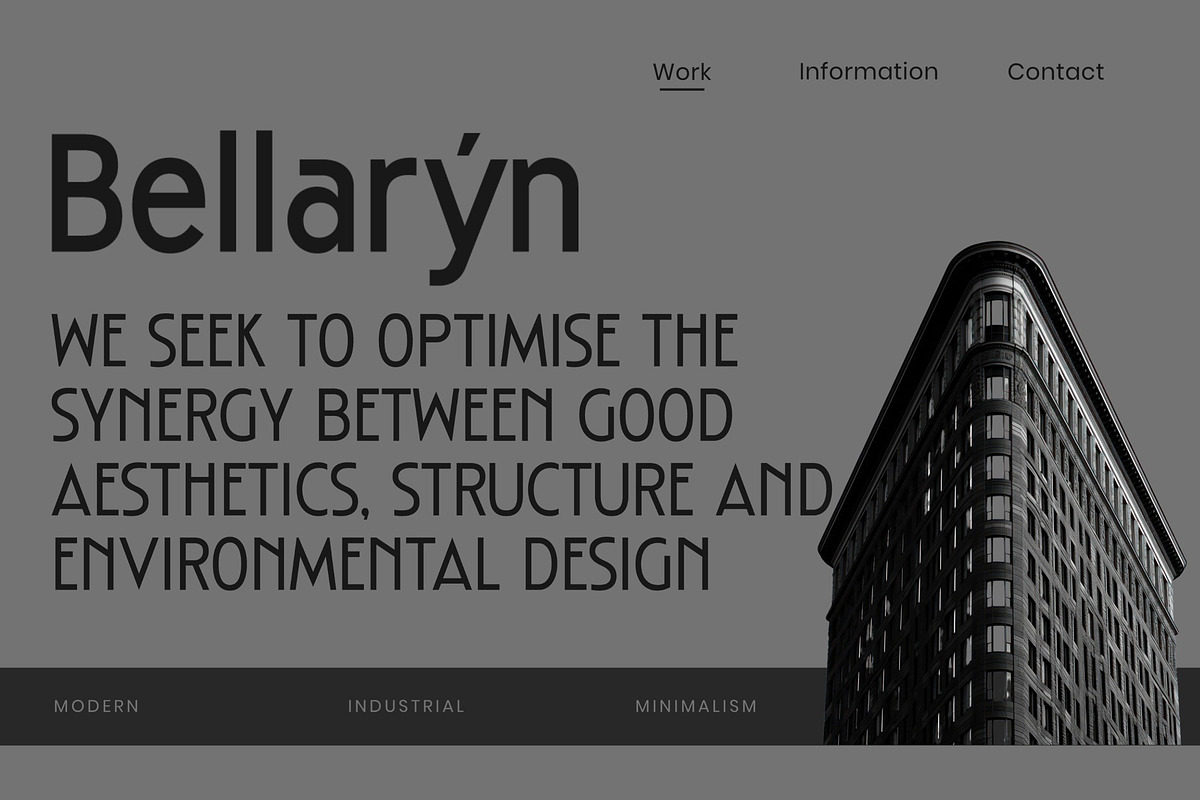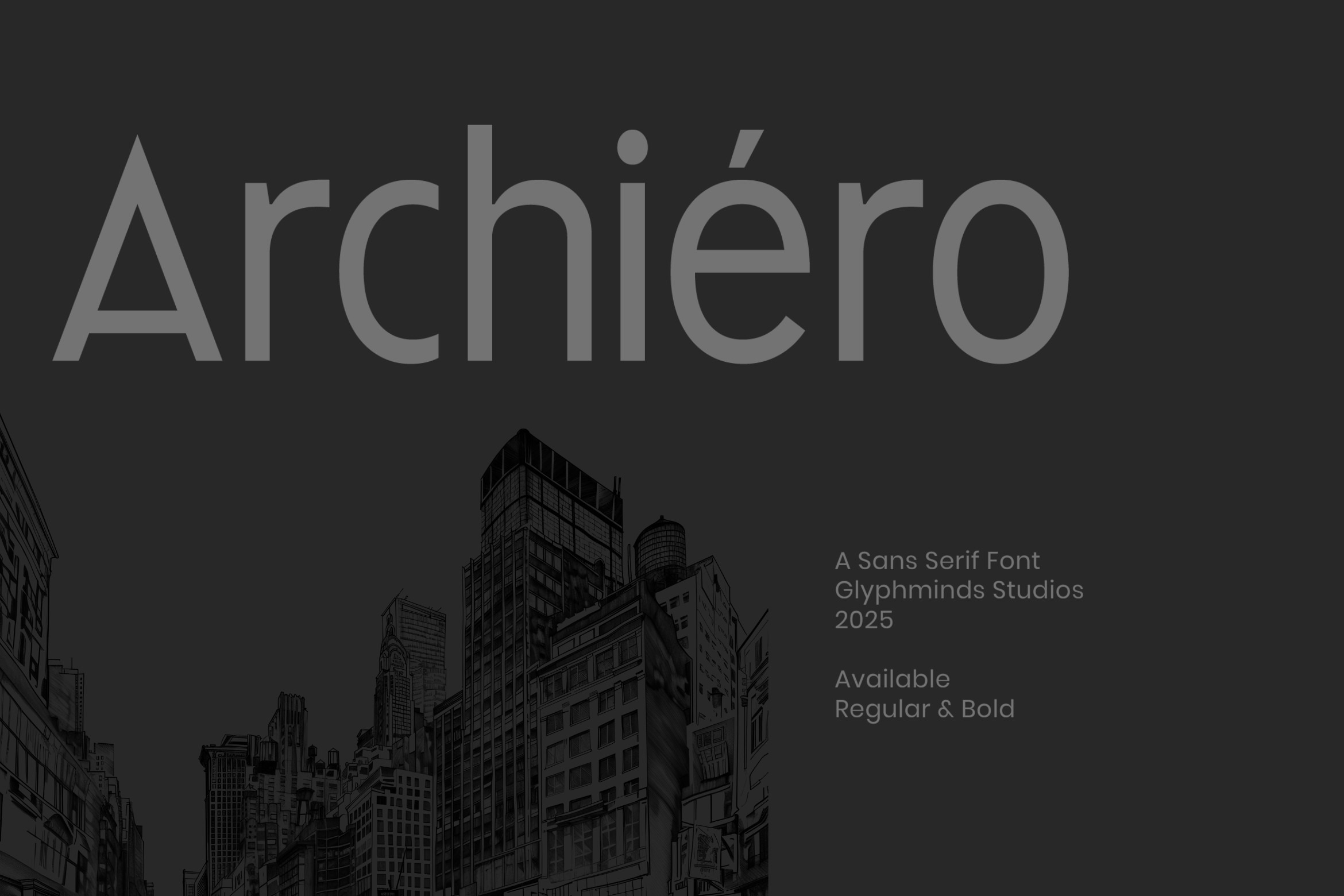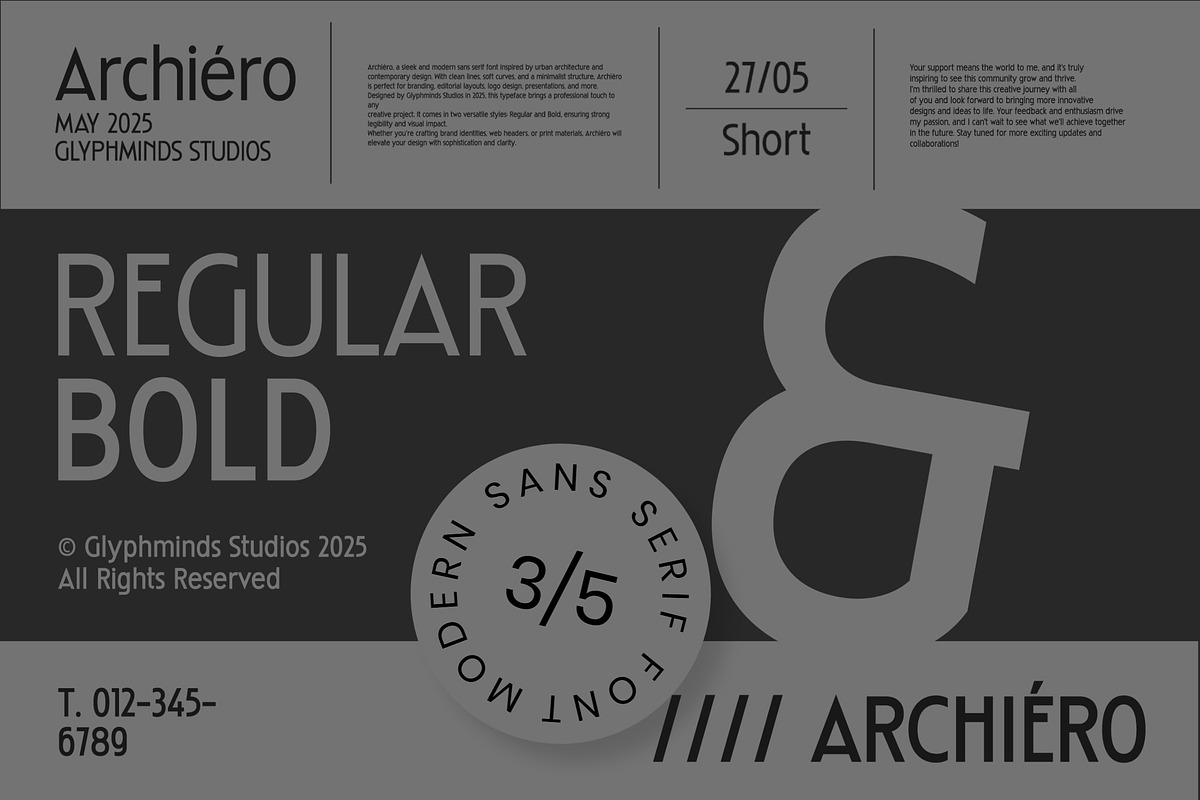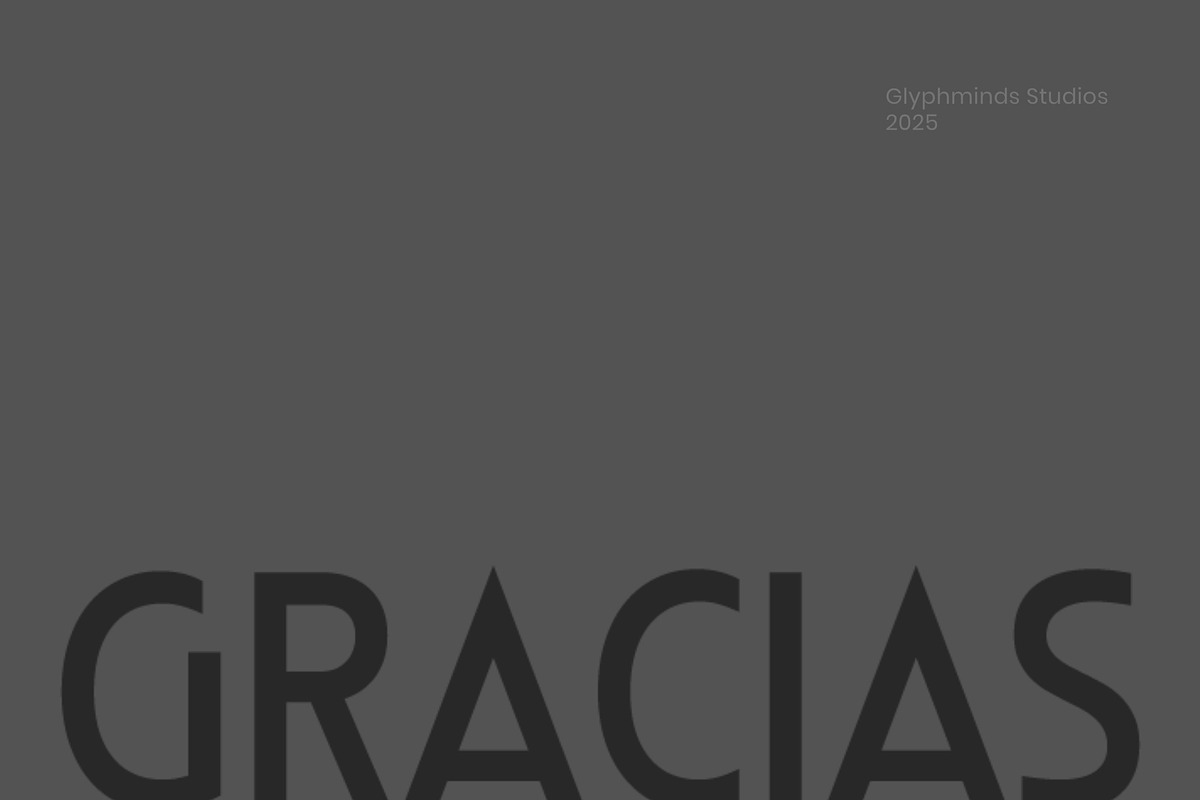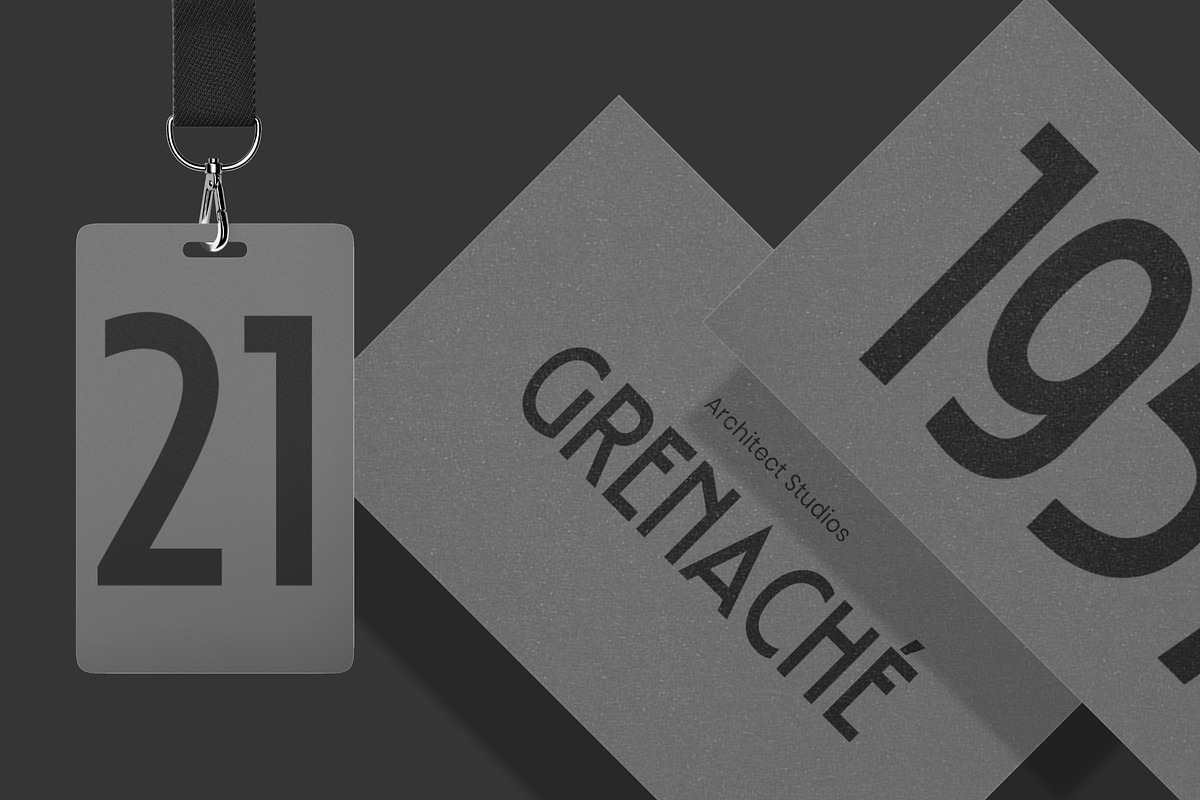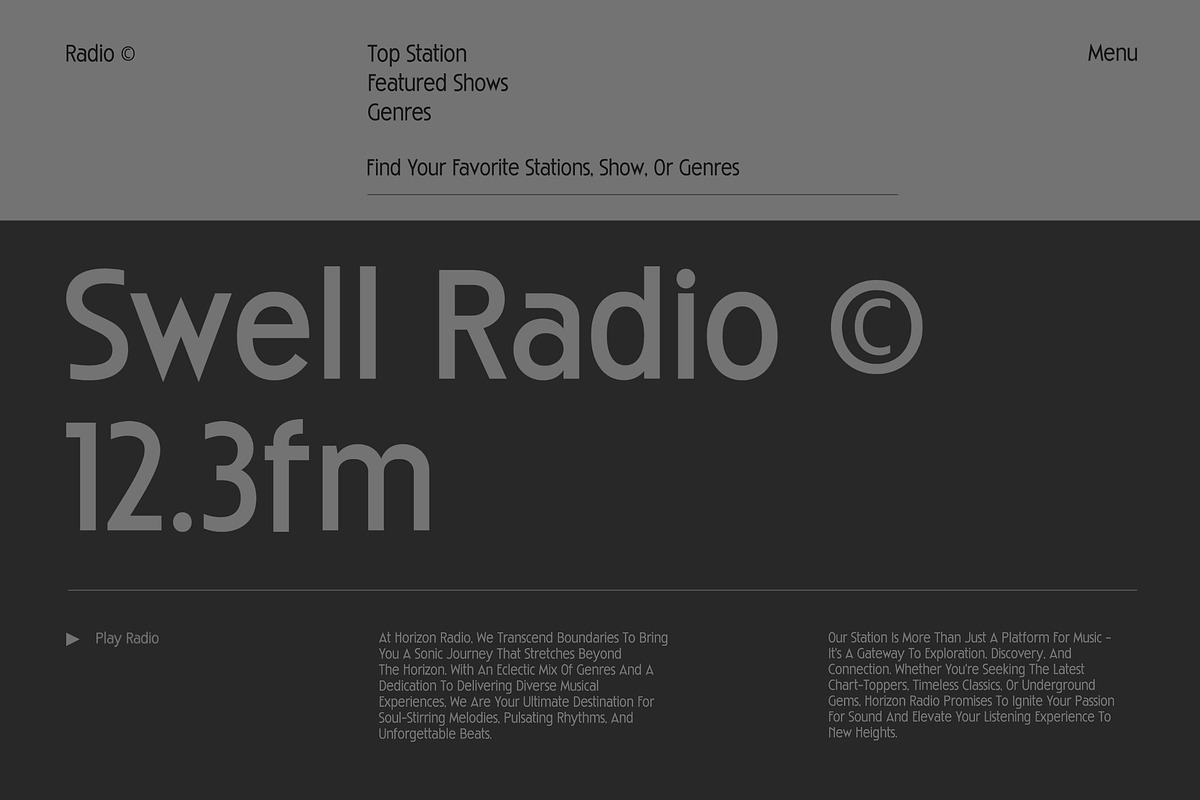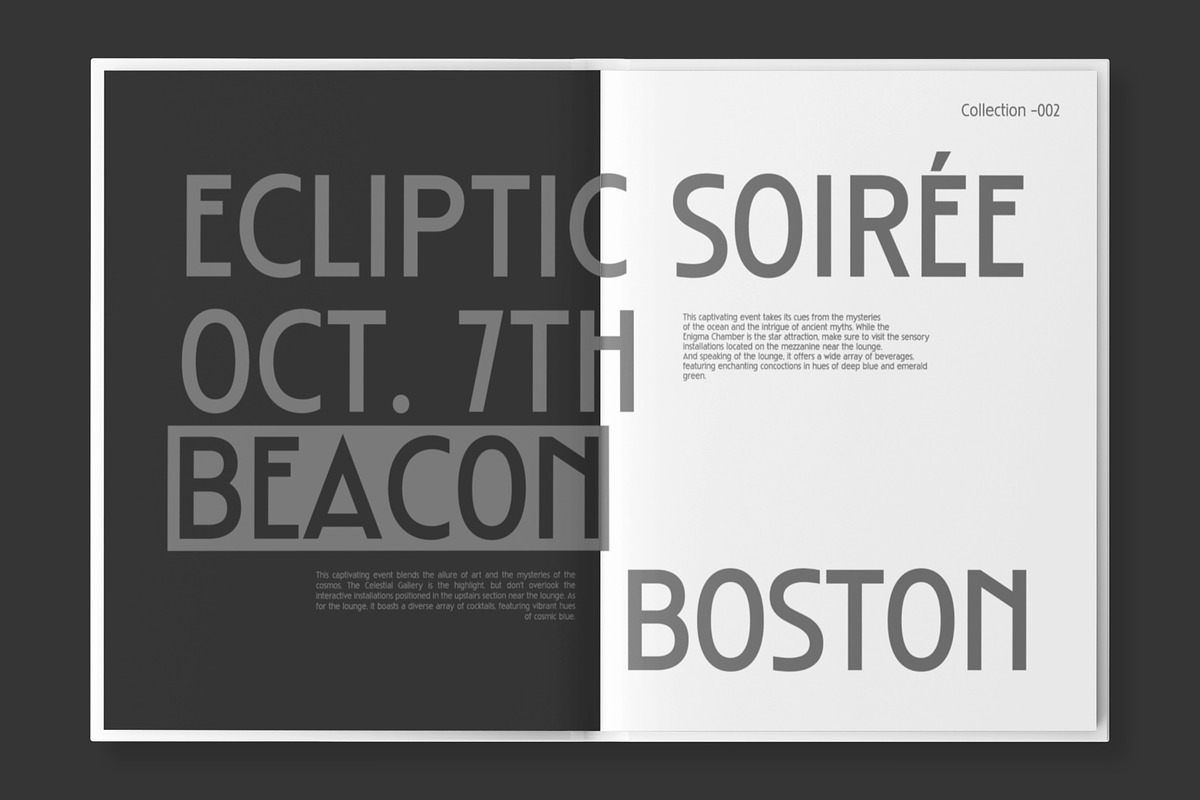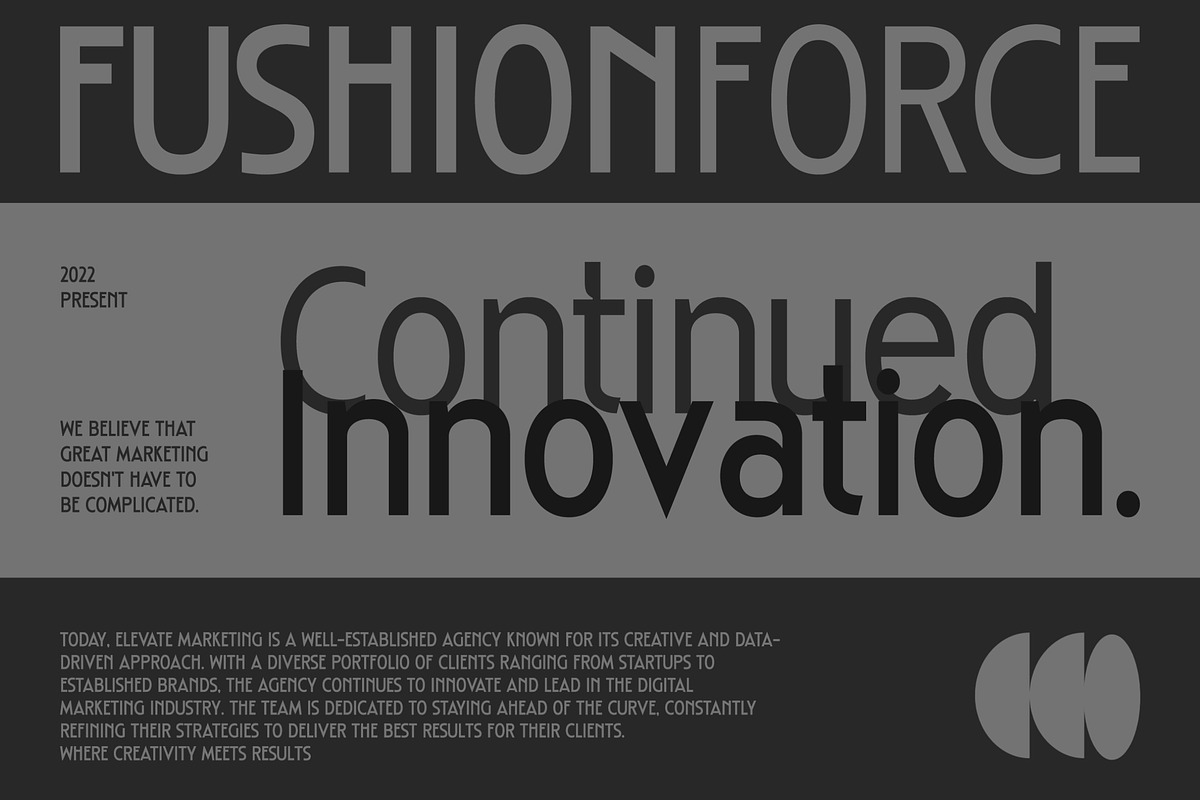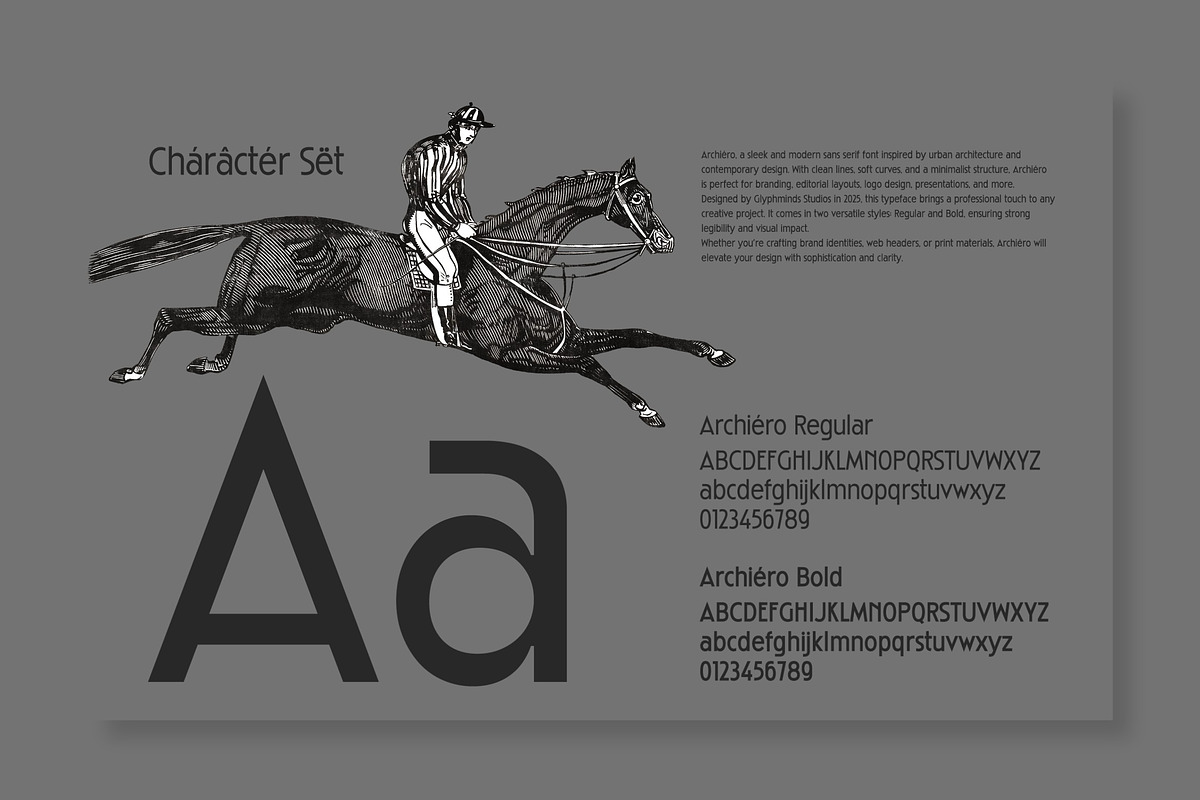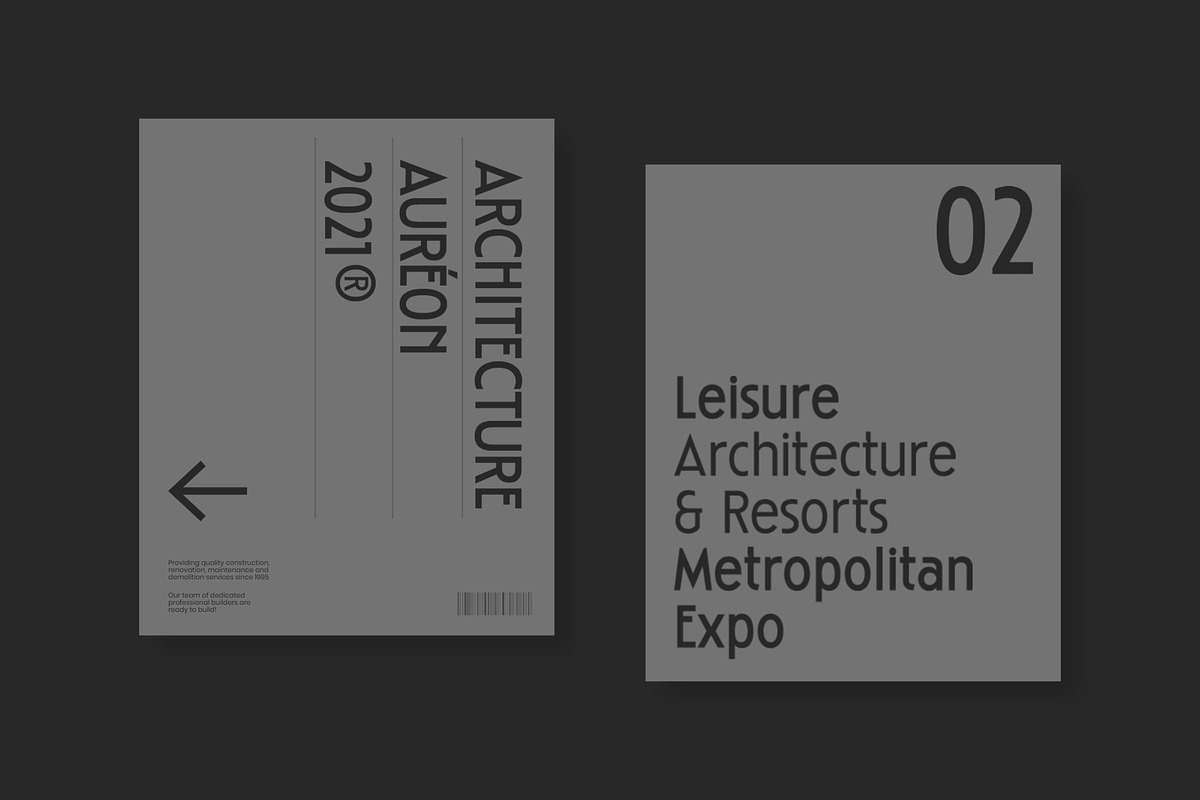
Archiéro - A Sans Serif Font
Archiéro: Build Your Vision with Architectural Precision.
Introducing Archiéro, a stunningly clean and geometric sans-serif font forged with the principles of modern architecture in mind. Its balanced letterforms and structural integrity provide the perfect foundation for projects that demand clarity, sophistication, and a contemporary edge.
Whether you are crafting a powerful brand identity, designing a minimalist website, or laying out a professional portfolio, Archiéro delivers unparalleled legibility and style. With both Regular and Bold weights included, you have the versatility to create striking headlines and easy-to-read body text that command attention.
Elevate your designs from mere concepts to timeless masterpieces. Choose Archiéro and build a brand that lasts.